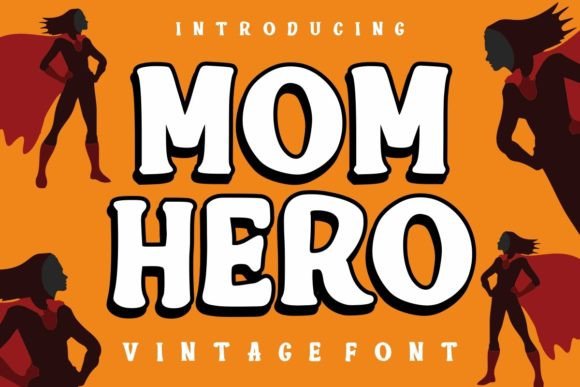
Mom Hero Font: A Timeless Classic for Winter and Holiday Branding
The Mom Hero Font has taken the design world by storm, and for good reason. This classic vintage font is an outline bold display font that exudes a sense of nostalgia and sophistication, making it the perfect choice for any winter and holiday branding project. In this article, we’ll dive into the world of Mom Hero Font, exploring its features, uses, and benefits, as well as provide tips on how to incorporate it into your design projects.
What is Mom Hero Font?
Mom Hero Font is a classic vintage font that boasts a bold, outline design. Its unique aesthetic is reminiscent of traditional winter and holiday branding, making it an excellent choice for seasonal projects. The font’s bold and outline features make it highly versatile, allowing it to be used in a variety of design applications, from product packaging to t-shirts, labels, posters, and more.
The Many Uses of Mom Hero Font
Mom Hero Font is an incredibly versatile font that can be used in a wide range of design projects. Here are some of the many uses of this amazing font:
- Winter and Holiday Branding: Mom Hero Font is perfect for creating festive and eye-catching branding for winter and holiday-themed products, services, and events.
- Product Packaging: The font’s bold and outline design makes it an excellent choice for product packaging, adding a touch of vintage charm to any product.
- Invitations: Mom Hero Font is ideal for creating invitations for weddings, parties, and other special events, adding a touch of elegance and sophistication.
- Quotes and Text Effects: The font’s unique design makes it perfect for creating eye-catching quotes and text effects, adding a touch of drama and flair to any design.
- T-Shirts and Apparel: Mom Hero Font is a great choice for designing t-shirts, hoodies, and other apparel, adding a touch of vintage charm to any garment.
- Labels and Posters: The font’s bold design makes it an excellent choice for creating labels and posters, adding a touch of elegance and sophistication to any design.
- Logos: Mom Hero Font can be used to create unique and eye-catching logos, adding a touch of vintage charm to any brand.
The Benefits of Using Mom Hero Font
Mom Hero Font offers a range of benefits that make it an excellent choice for designers and brands. Here are some of the key benefits of using Mom Hero Font:
- Unique Aesthetic: Mom Hero Font boasts a unique and eye-catching aesthetic that sets it apart from other fonts.
- Versatility: The font’s bold and outline design makes it highly versatile, allowing it to be used in a wide range of design applications.
- Elegance and Sophistication: Mom Hero Font adds a touch of elegance and sophistication to any design, making it perfect for high-end brands and luxury products.
- Nostalgia: The font’s vintage design evokes a sense of nostalgia, making it perfect for brands and products that want to tap into a sense of classic charm.
Tips for Using Mom Hero Font
Here are some tips for using Mom Hero Font in your design projects:
- Use it Sparingly: Mom Hero Font is a bold font, so it’s best to use it sparingly to avoid overwhelming the design.
- Pair it with Other Fonts: The font pairs well with other fonts, so don’t be afraid to experiment with different font combinations.
- Experiment with Colors: Mom Hero Font looks great in a range of colors, so experiment with different colors to find the perfect fit for your design.
- Pay Attention to Kerning: As with any font, pay attention to kerning to ensure that the text is evenly spaced and easy to read.
Mom Hero Font is a timeless classic that is perfect for any winter and holiday branding project. Its unique aesthetic, versatility, and elegance make it an excellent choice for designers and brands. With its bold and outline design, Mom Hero Font is sure to add a touch of vintage charm to any design. Whether you’re looking to create festive branding, product packaging, or eye-catching text effects, Mom Hero Font is an excellent choice.